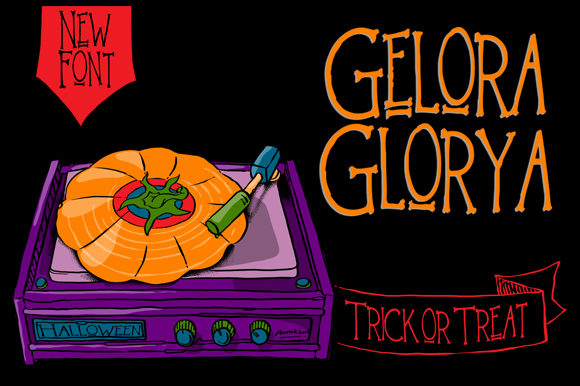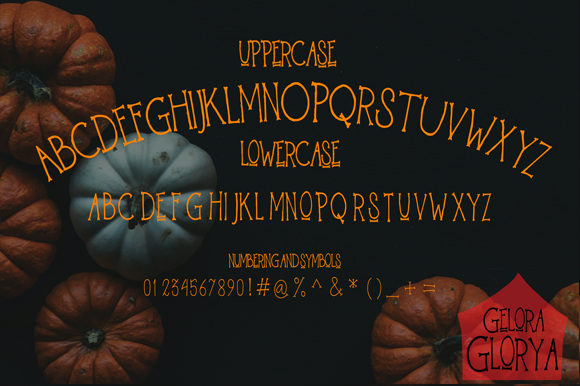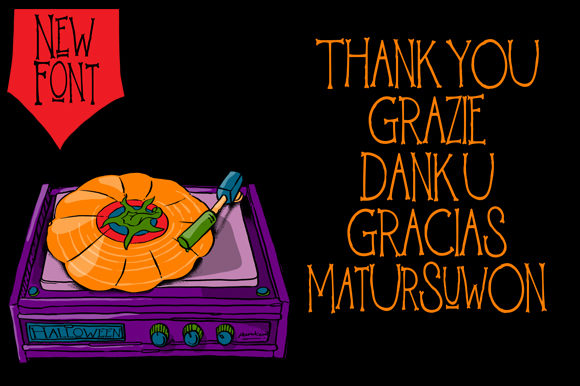
Introduction to Gelora Glorya Font
Imagine you’re in the middle of a creative project, pouring your heart and soul into it, and the perfect font is all you need to bring it to life. That’s exactly what happens when you discover the mesmerizing Gelora Glorya Font. This smooth, elegant display font is a masterclass in spooky Halloween charm, making it the ultimate addition to your most ambitious designs.
What sets Gelora Glorya Font apart is its versatility – it’s the perfect fit for a wide range of creative projects, from eerie invitations to haunting book covers. With its high-quality design and transparent background, this font is a valuable resource for designers looking to elevate their work to the next level. And the best part? It’s available for free download, making it an accessible gem for creatives of all levels.
Whether you’re a seasoned pro or just starting out, Gelora Glorya Font is an essential tool to have in your design arsenal. In this article, we’ll delve into the world of this captivating font and explore its many uses, so you can unlock its full potential and take your creative projects to new heights.
Key Features of Gelora Glorya Font
- High-quality, professional font suitable for various creative projects
- Transparent background allows for seamless integration with designs
- Supports a wide range of languages, making it a versatile design resource
- Comes in a single weight, ideal for projects requiring a clean and modern aesthetic
Honest Review: Gelora Glorya Font
As a designer, I’m always on the lookout for high-quality design resources that can elevate my creative projects. The Gelora Glorya Font is one such resource that caught my attention. With its unique and elegant style, it’s perfect for projects that require a touch of sophistication.
What works well with the Gelora Glorya Font is its versatility. It comes in a range of weights, from light to bold, making it suitable for a variety of applications, from headings to body text. The font is also available for free download, making it an excellent choice for designers on a budget.
Here are some of the font’s key features:
- High-quality design with transparent background
- Range of weights for versatility
- Suitable for various design projects
While the Gelora Glorya Font is a great addition to any design library, there are some limitations to consider. ⚠️ The font may not be suitable for projects that require a more modern or minimalist look, as its design is quite ornate. Additionally, the font may not be compatible with all operating systems or software.
Overall, the Gelora Glorya Font is a great choice for designers who want to add a touch of elegance to their creative projects. Its high-quality design and range of weights make it a versatile and useful resource. ✨
Tips for Getting the Most Out of Gelora Glorya Font
Use Gelora Glorya Font in creative projects that require a high-quality, free design resource. This font is perfect for designs that require a transparent background. Experiment with different font sizes and styles to get the most out of this versatile font.
Gelora Glorya Font is commonly used in social media graphics, presentations, and digital marketing materials. Its high-quality design and transparent background make it an ideal choice for creative projects that require a professional look.
Alternatives to Gelora Glorya Font
Pacifico is a beautiful, elegant script font perfect for creative projects that require a touch of sophistication. It’s ideal for use in wedding invitations, branding, and other design elements where a high-quality, handwritten look is desired.
Pacifico compares to Gelora Glorya Font in its cursive style, but it has a more refined and polished appearance. It’s also available for free download, making it a great alternative for designers looking for a high-quality, transparent background font.